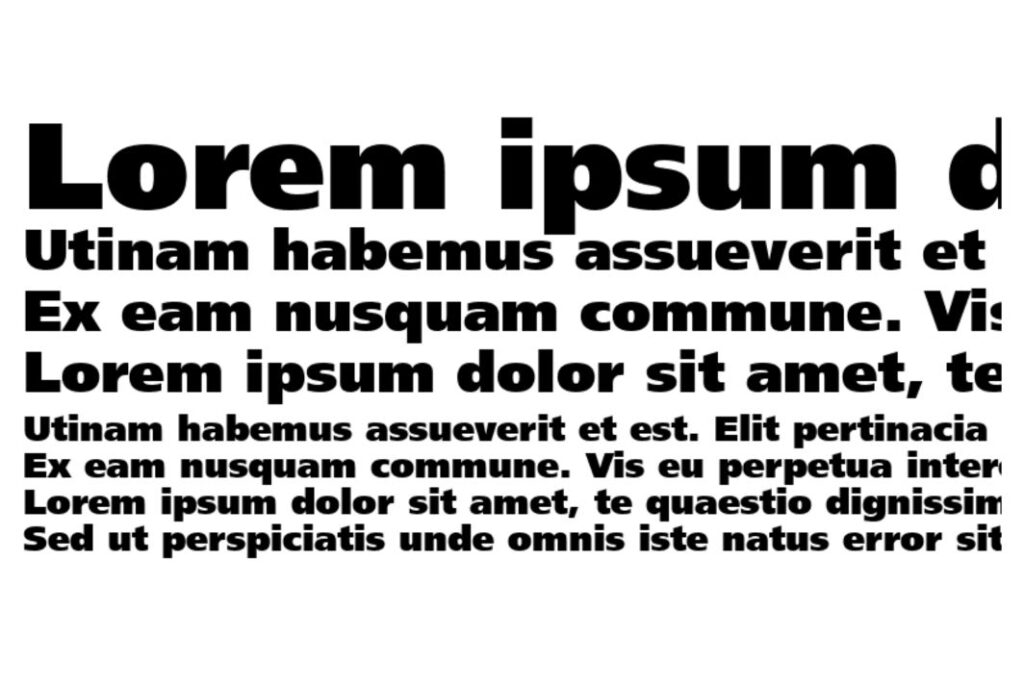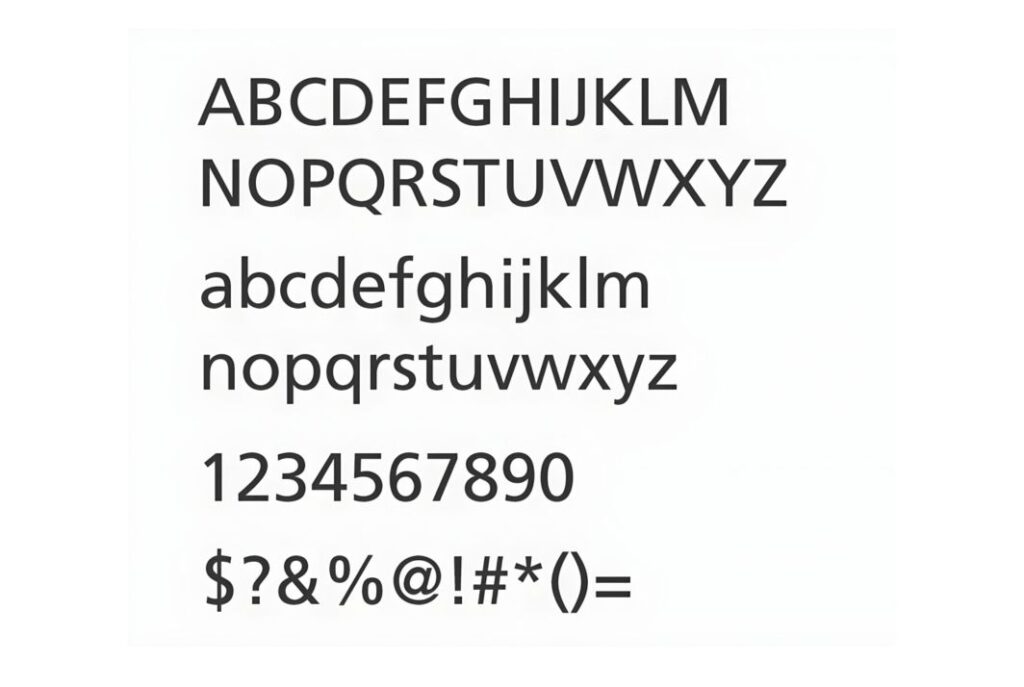
Frutiger Font Family
Frutiger Font Family is a widely admired sans serif font designed for exceptional clarity and usability. Originally created for the Charles de Gaulle Airport signage system, the typeface was crafted to deliver maximum legibility from various distances and angles. Its clean structure and modern feel make it ideal for environments where quick and accurate reading matters.
As Adrian Frutiger began working on the project in 1968, he chose not to rely on Univers and instead developed a completely new design. This decision led to a family font that visually balanced simplicity and precision, making it suitable for both large-scale signage and everyday design applications. The font’s form and spacing support smooth visual flow, even in fast-paced navigation settings.
Frutiger eventually became a benchmark for public-space typography because it aligns seamlessly with contemporary architectural styles. Its humanist shapes, open counters, and well-defined strokes make it a dependable choice for branding, signage, digital interfaces, and print. The result is a typeface that continues to offer clarity, character, and timeless functionality.